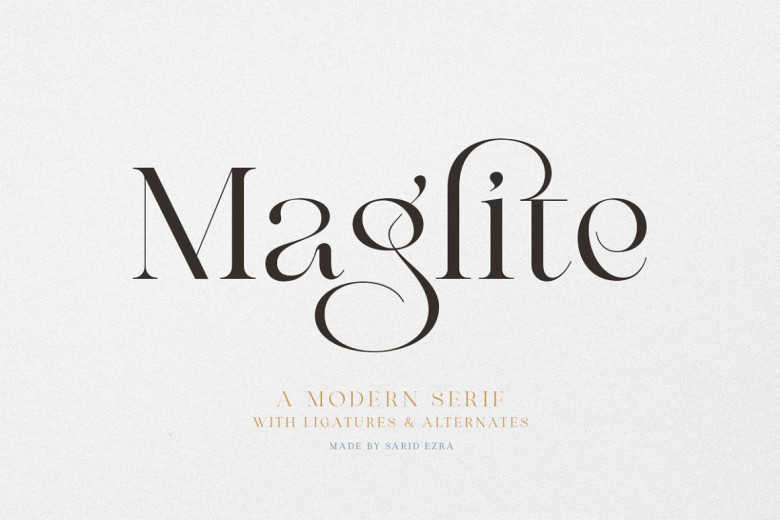
Maglite Font
Maglite Font is an elegant and contemporary serif font packed with features to make your presentation, project, or logo stand out! With options like alternate characters and ligatures that add beauty and grace, Maglite can help your project or presentation make an impactful statement!
Perfect for use as wedding invitations or branding font, Multi Language support makes this font versatile as well!
Maglite Modern Serif Font